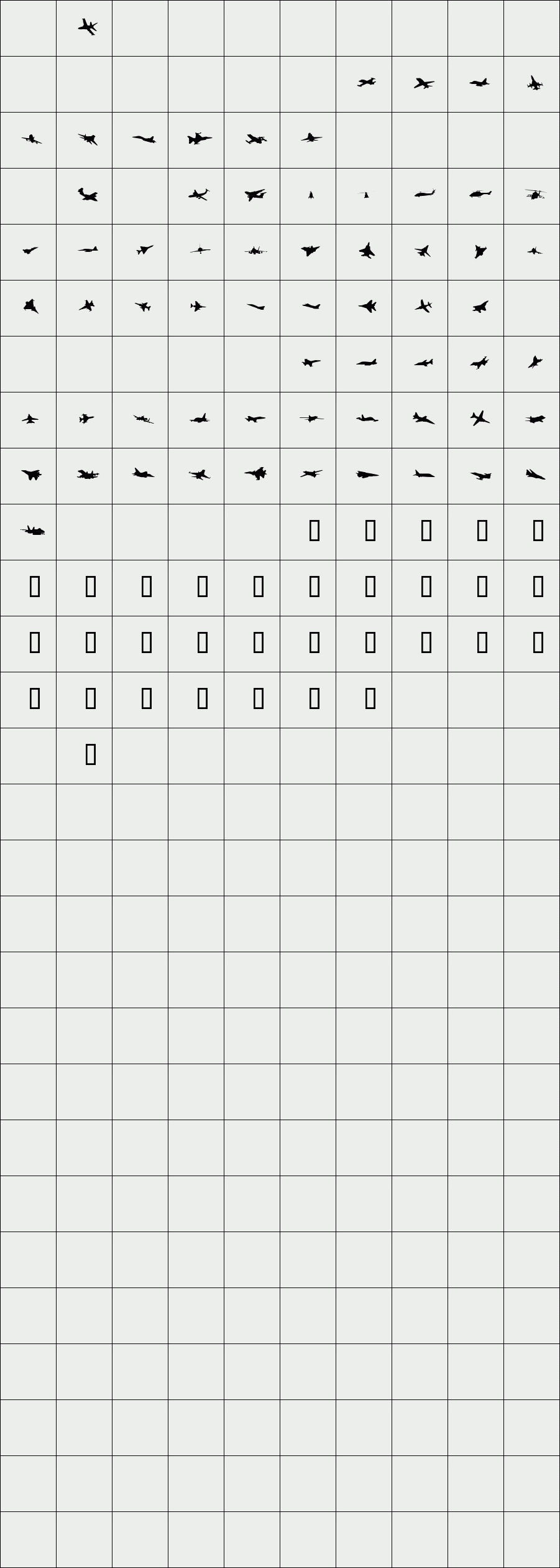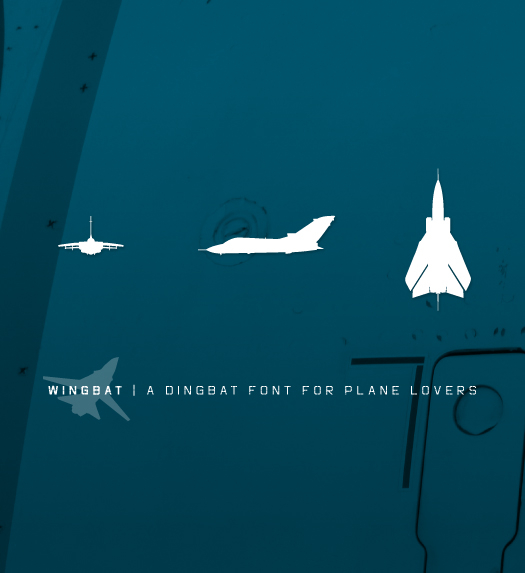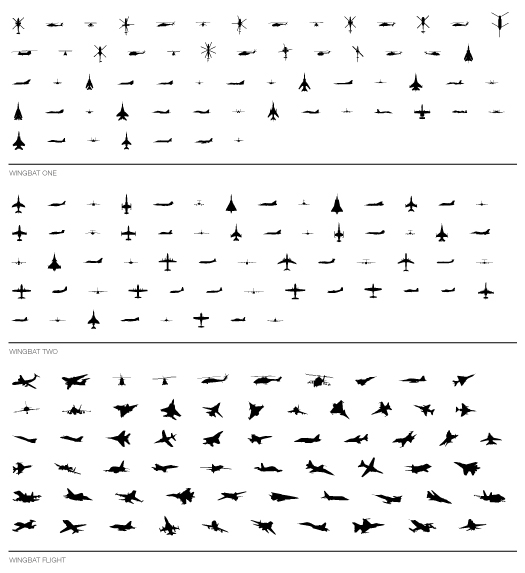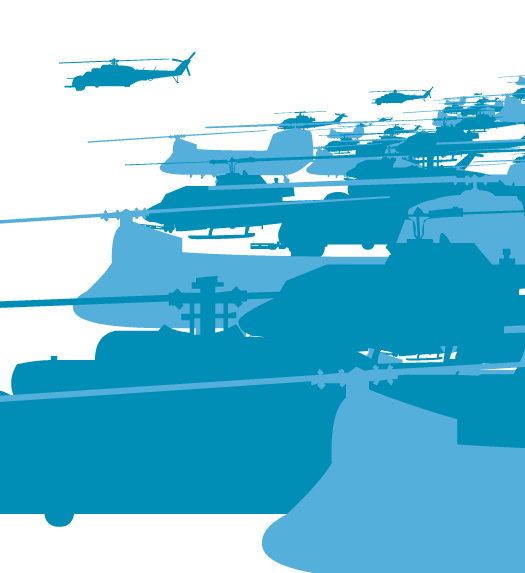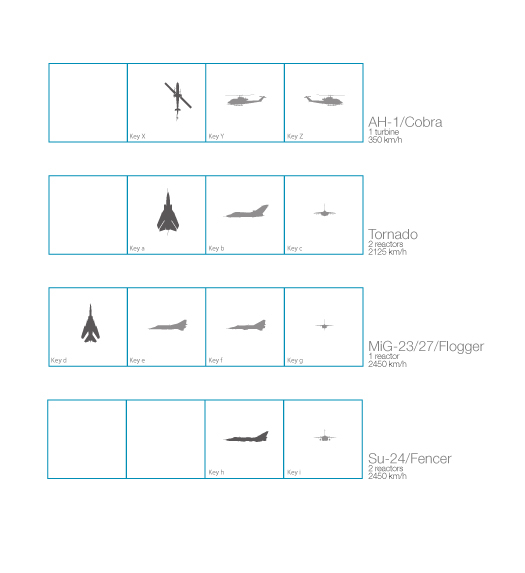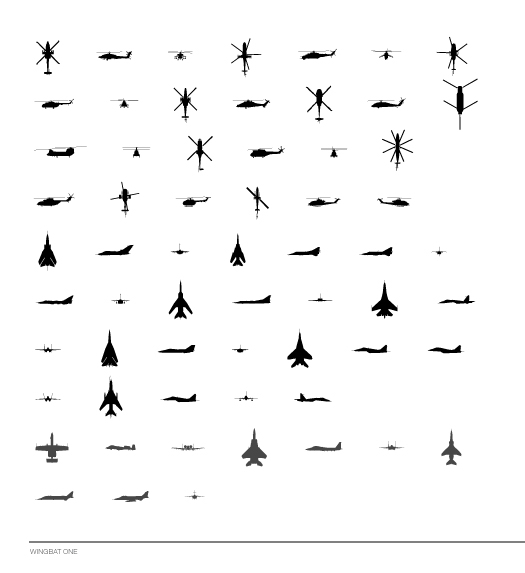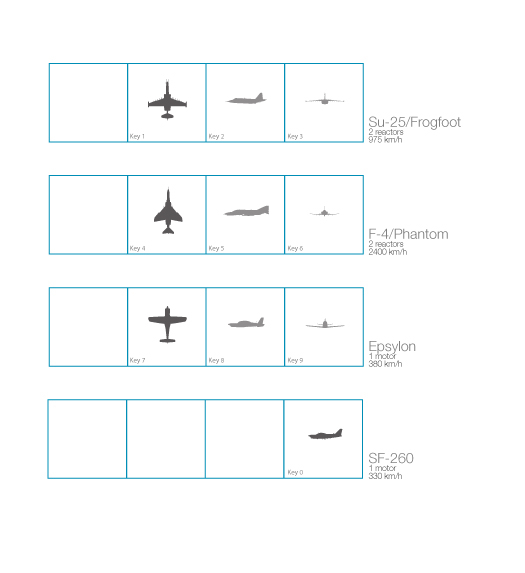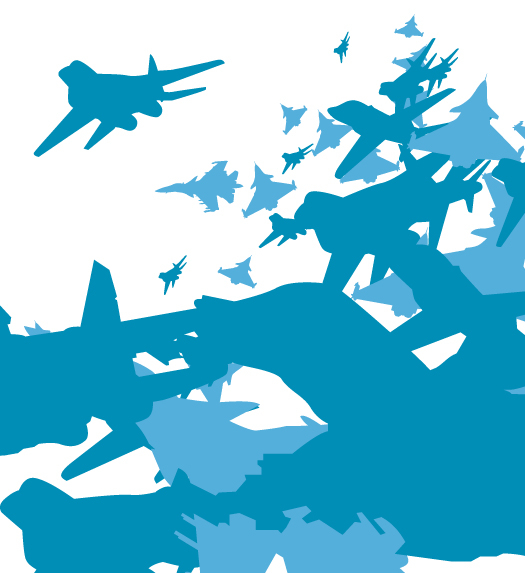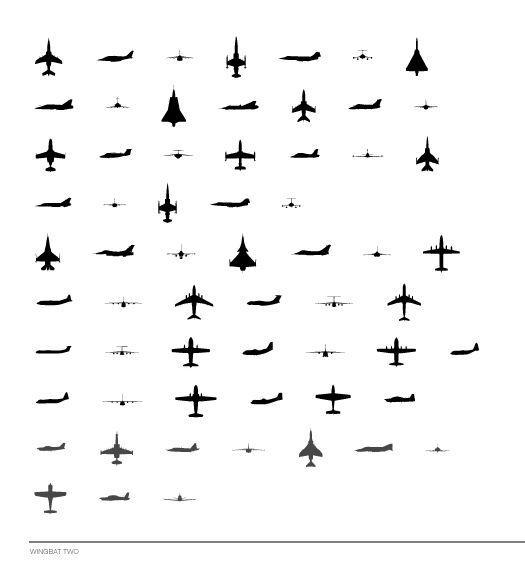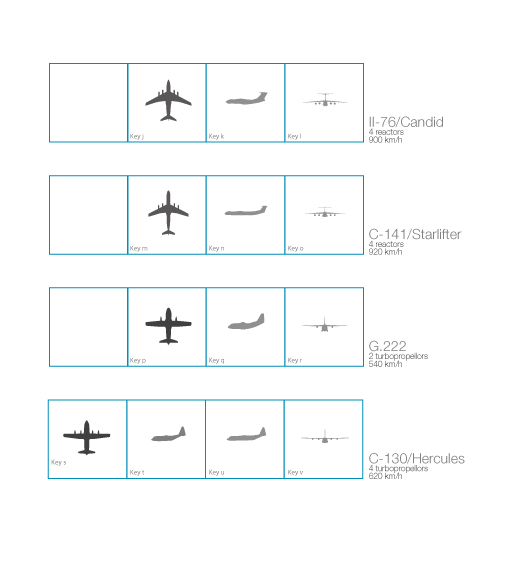
Wingbat
/ Wingbat flight
The perfect font for all the airplane lovers, Wingbat is a dingbat font that contains over 40 different plane silhouettes ready to layout. There is also the flight version that contains a series of planes in various flying settings.